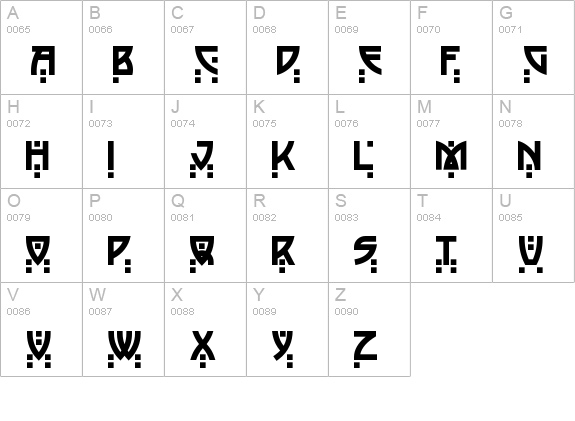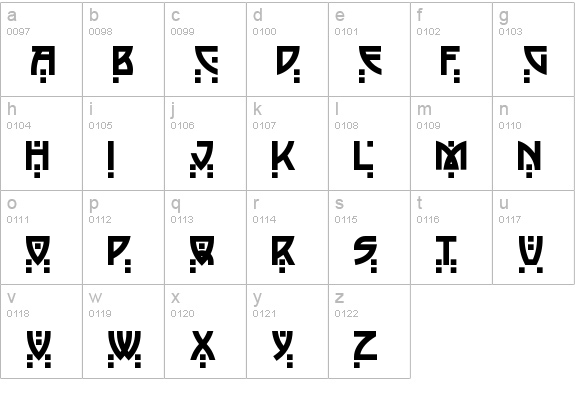
BalaCynwyd font is a versatile and modern typeface that brings elegance and sophistication to any design project. With its sleek lines and geometric shapes, this font exudes a sense of contemporary style and professionalism. Whether used for branding, editorial design, or web content, BalaCynwyd font adds a touch of class and refinement. The best part? BalaCynwyd font is available for free download at FontsMarket.com, making it accessible to designers and creatives looking to elevate their work without breaking the bank. Don't miss out on the opportunity to add this stunning font to your collection and take your designs to the next level.